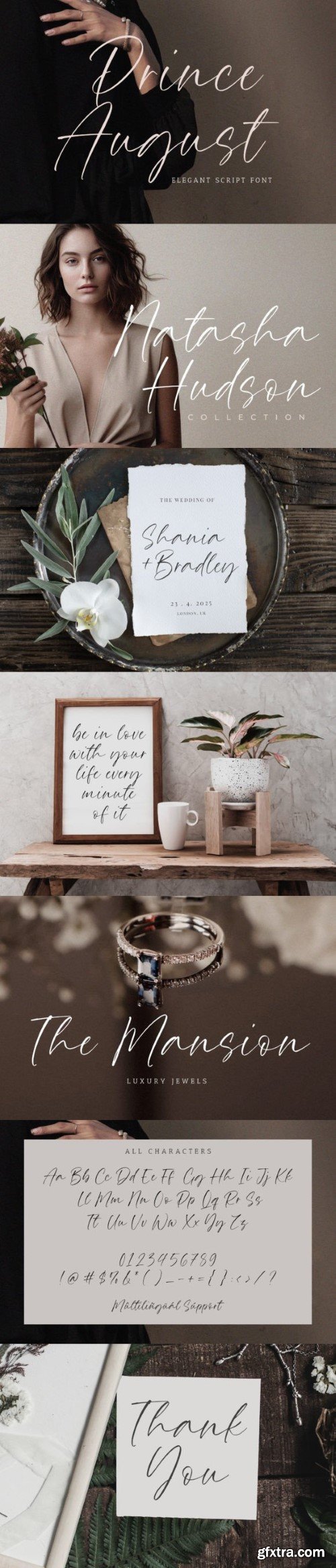
Proudly Present, Rightwood
Rightwood A Handwritten Font , which was created with great care and specially created for you
Rightwood is perfect for product packaging, branding project, megazine, social media, wedding, or just used to express words above the background.
Proudly Present, Rightwood
Rightwood A Handwritten Font , which was created with great care and specially created for you
Rightwood is perfect for product packaging, branding project, megazine, social media, wedding, or just used to express words above the background.